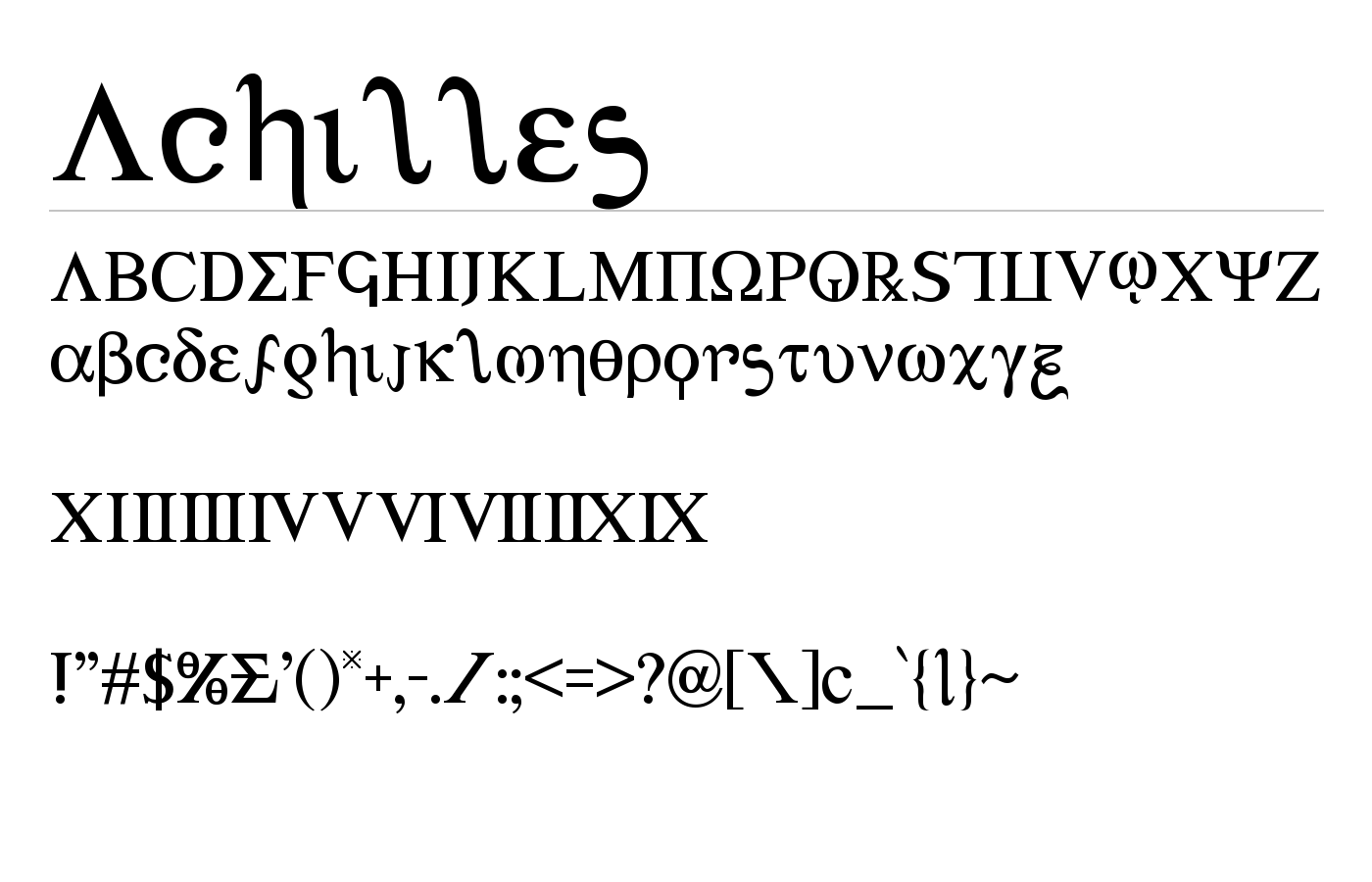
Achilles Font is a distinctive serif typeface inspired by ancient Greek lettering, blending classic elegance with a modern twist. Its high contrast strokes, sharp serifs, and unique letterforms convey a scholarly, timeless feel, making it ideal for cultural, historical, or luxury branding projects that aim to evoke a sense of heritage and sophistication.
Achilles Font